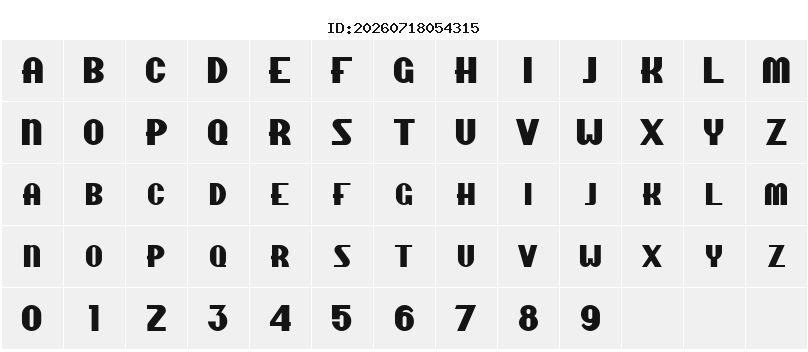
• Font Name: Chippewa Falls NF
• Full Font Name: Chippewa Falls NF
• Designer: Nick Curtis
• Manufacturer: Nick's Fonts
About Chippewa Falls NF.ttf
Chippewa Falls NF.ttf is a modern, elegant sans-serif font designed for ultimate readability and visual harmony. Perfect for branding, headlines, web design, and print materials.